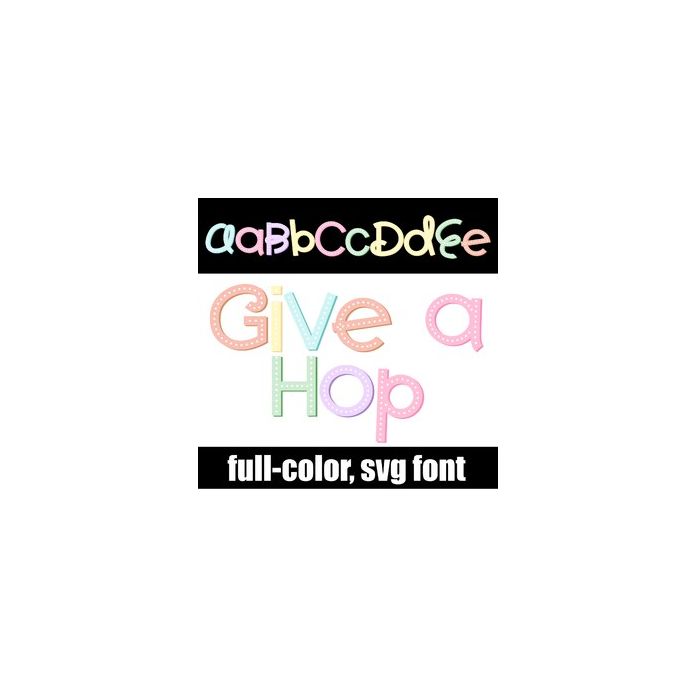
This full-color font features a pastel color palette in fun springy lettering. There is an alt version you can access through your system's character map that contains additional colors of all the letters.